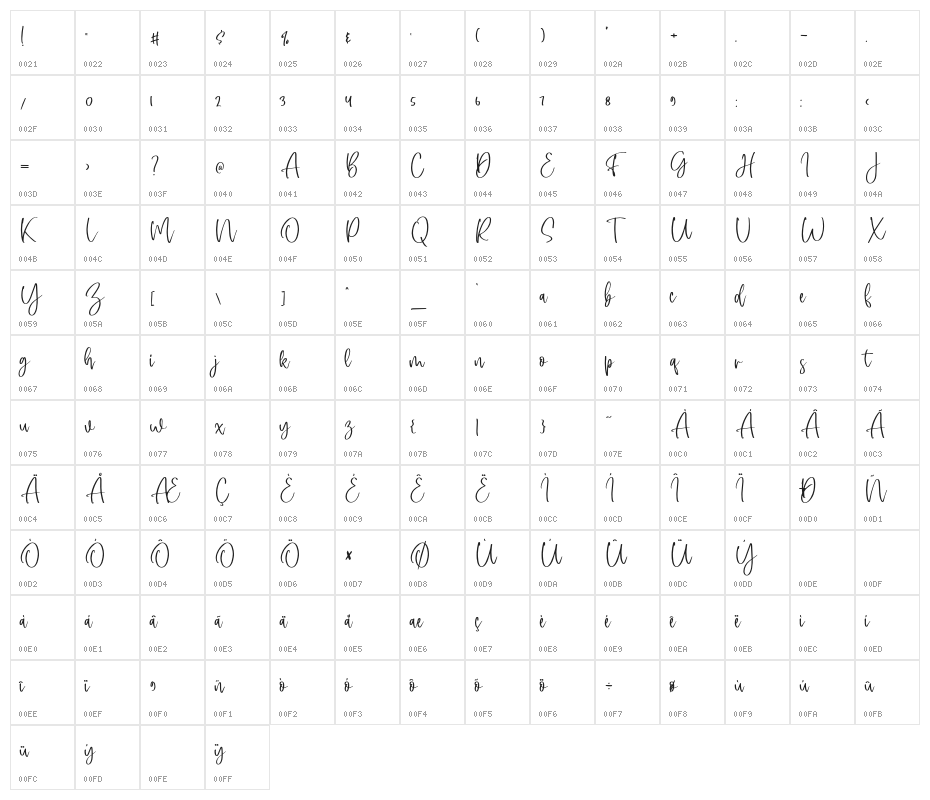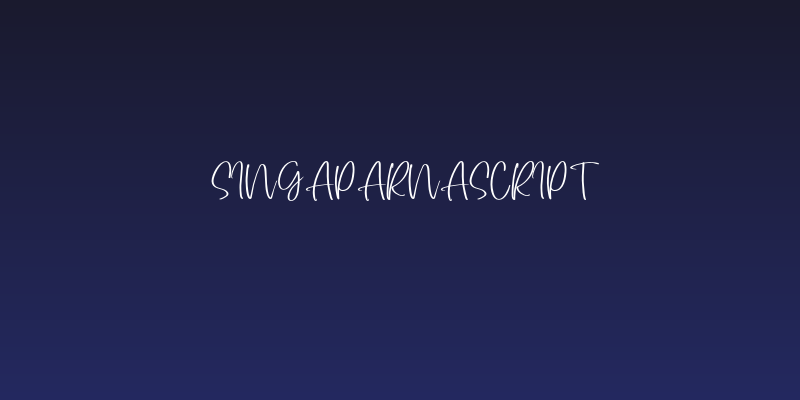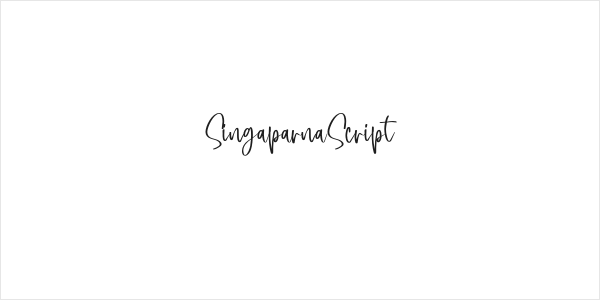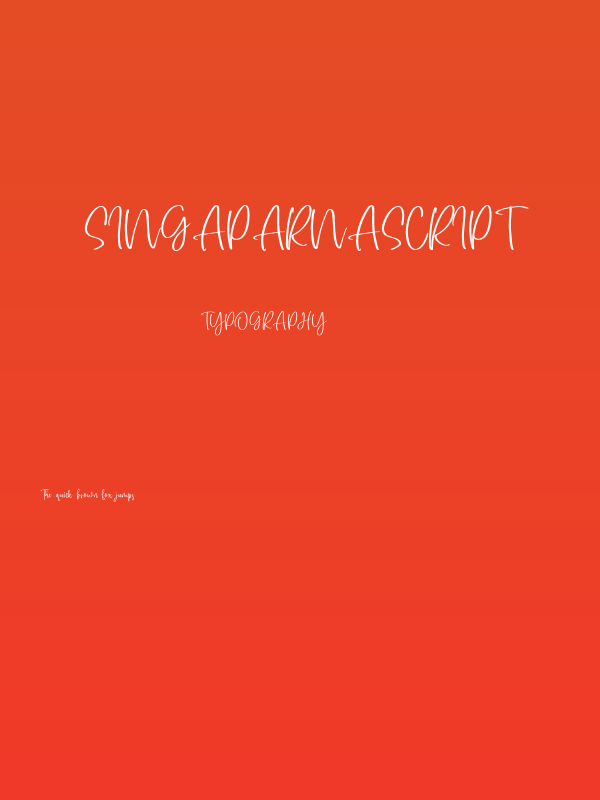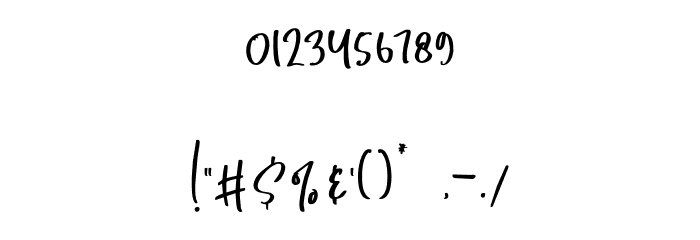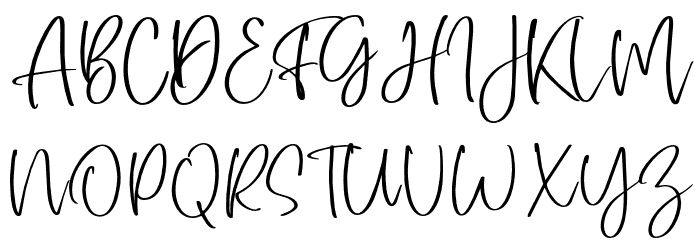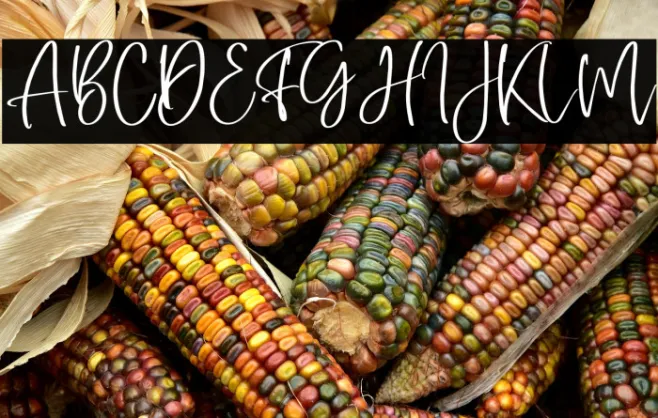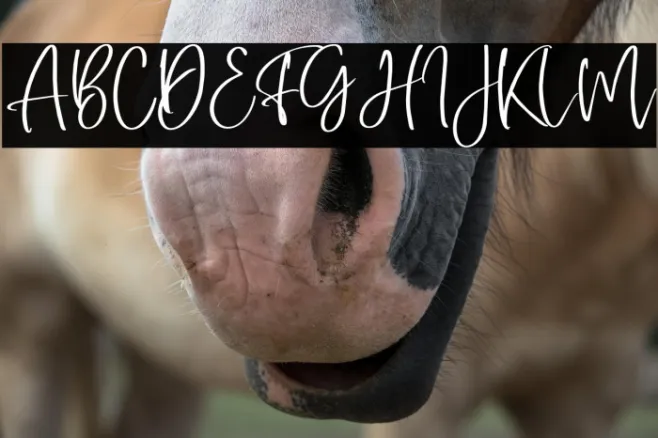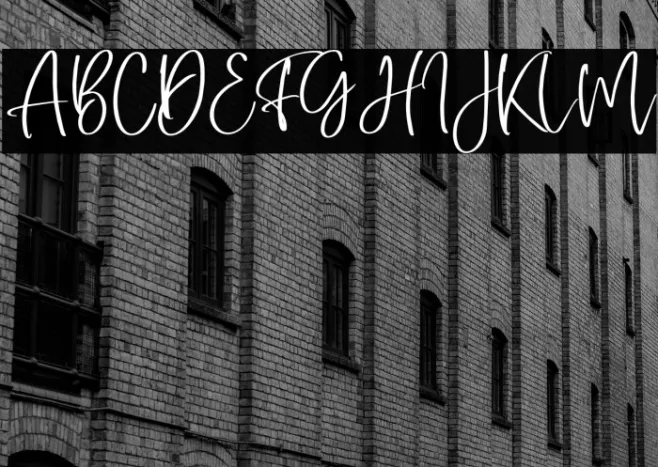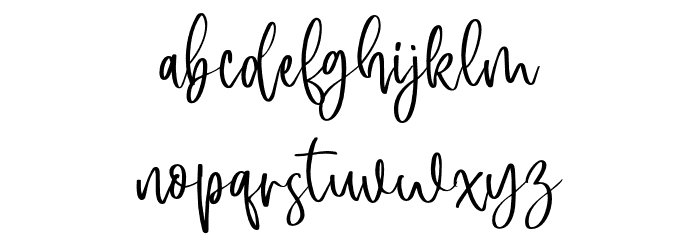
SingaparnaScript Font
SingaparnaScript Description
This font exudes a playful and elegant script style, characterized by its fluid and connected strokes. The uppercase letters are bold and expressive, with a slight slant that adds a dynamic feel. The lowercase letters maintain a consistent flow, enhancing readability while retaining a handwritten charm. Numbers and special characters are crafted with the same attention to detail, ensuring a cohesive look across all text elements. The overall design is both modern and timeless, making it suitable for a variety of creative applications.
| Proposed Projects | Ideal for wedding invitations, greeting cards, branding projects, and social media graphics. |